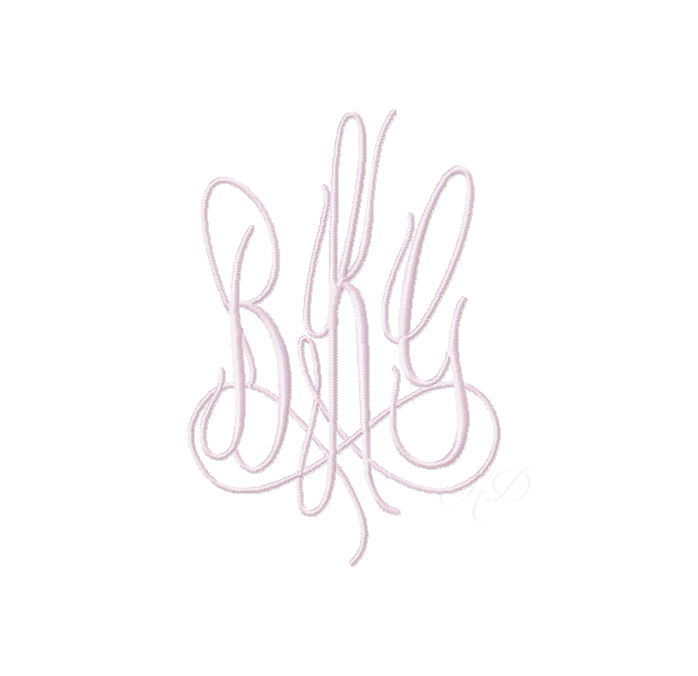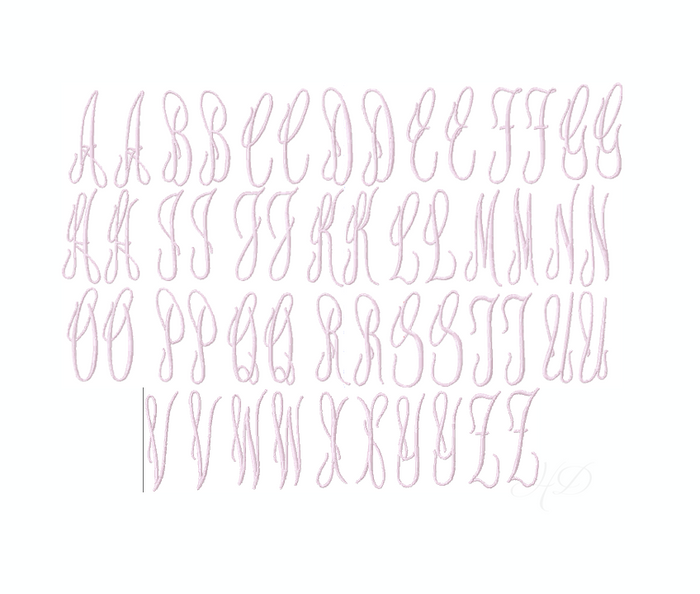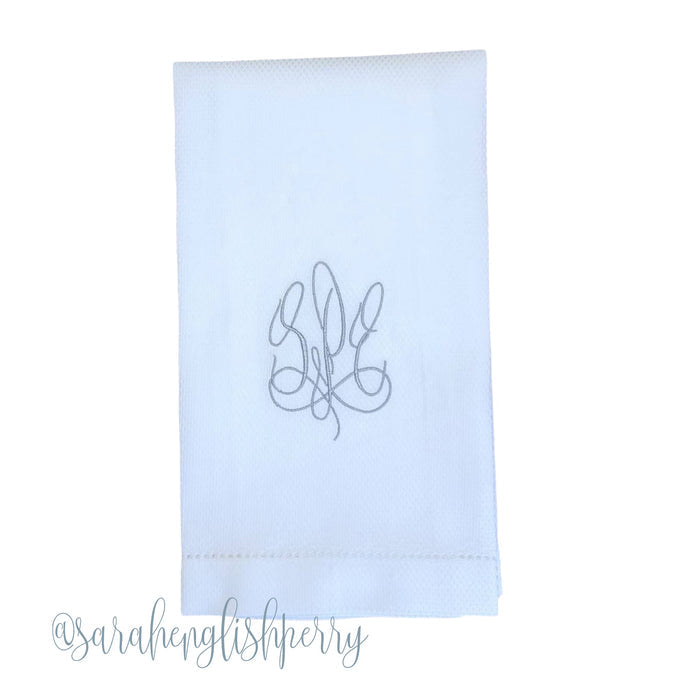
Maggie Script Monogram Satin Embroidery Font Package
Unleash your creativity with the Maggie Script Monogram Font Package, designed for crafters and DIY enthusiasts. This package includes three versatile sizes that allow you to create stunning monograms: 4x4 (3.5"), 5x7 (6"), and 6x10 (7.5"). Each size provides you with 78 letters to personalize your projects effectively.